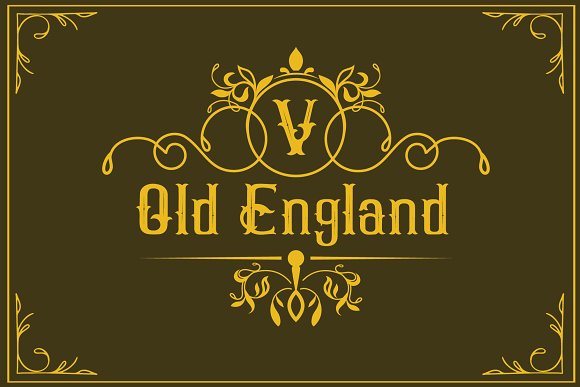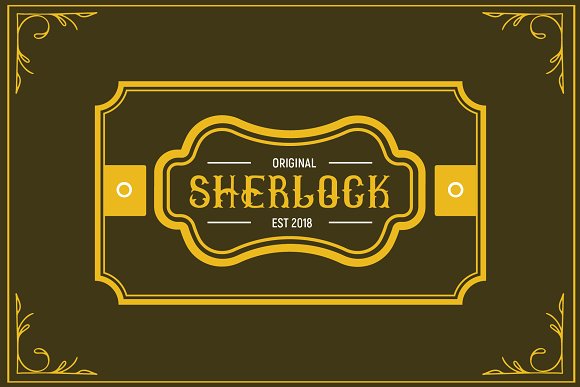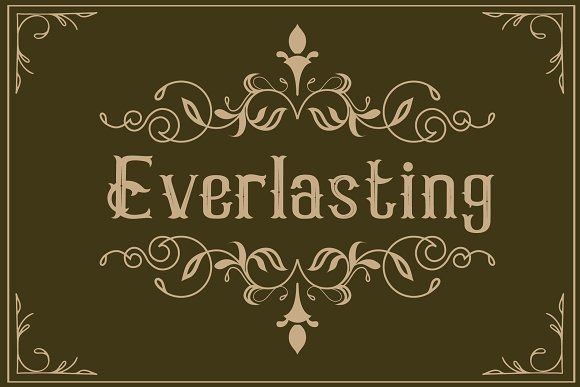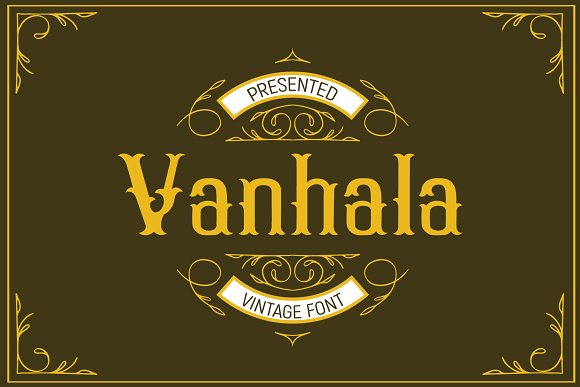
Vanhala Font
Hello there, here is the new vintage font. This stuff is perfect for you to use it on your design logo, banner, poster, or even a signature design. This is an original hand writing font, perfect for give your design an